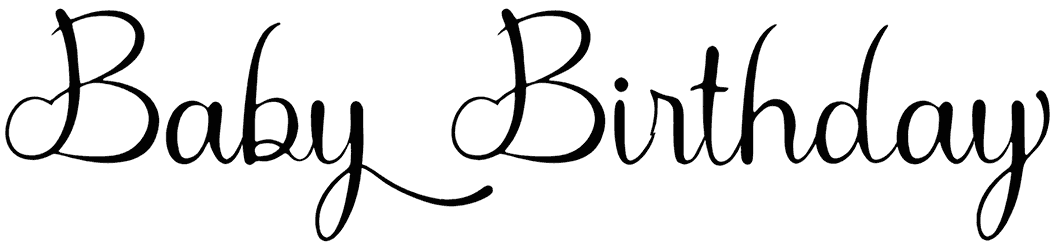
Baby Birthday Font
Baby Birthday is a modern font that can replace many repetitive handwritten fonts in your collection. The narrow lines in this script font are carefully placed together so that each letter can be connected to the other well and elegantly, using extended and alternating lines.
To create modern and fresh connections in this happy birthday font, just rely on your creativity to find the most different ways to implement your ideas in packaging, apparel, the jewelry industry, and advertising.